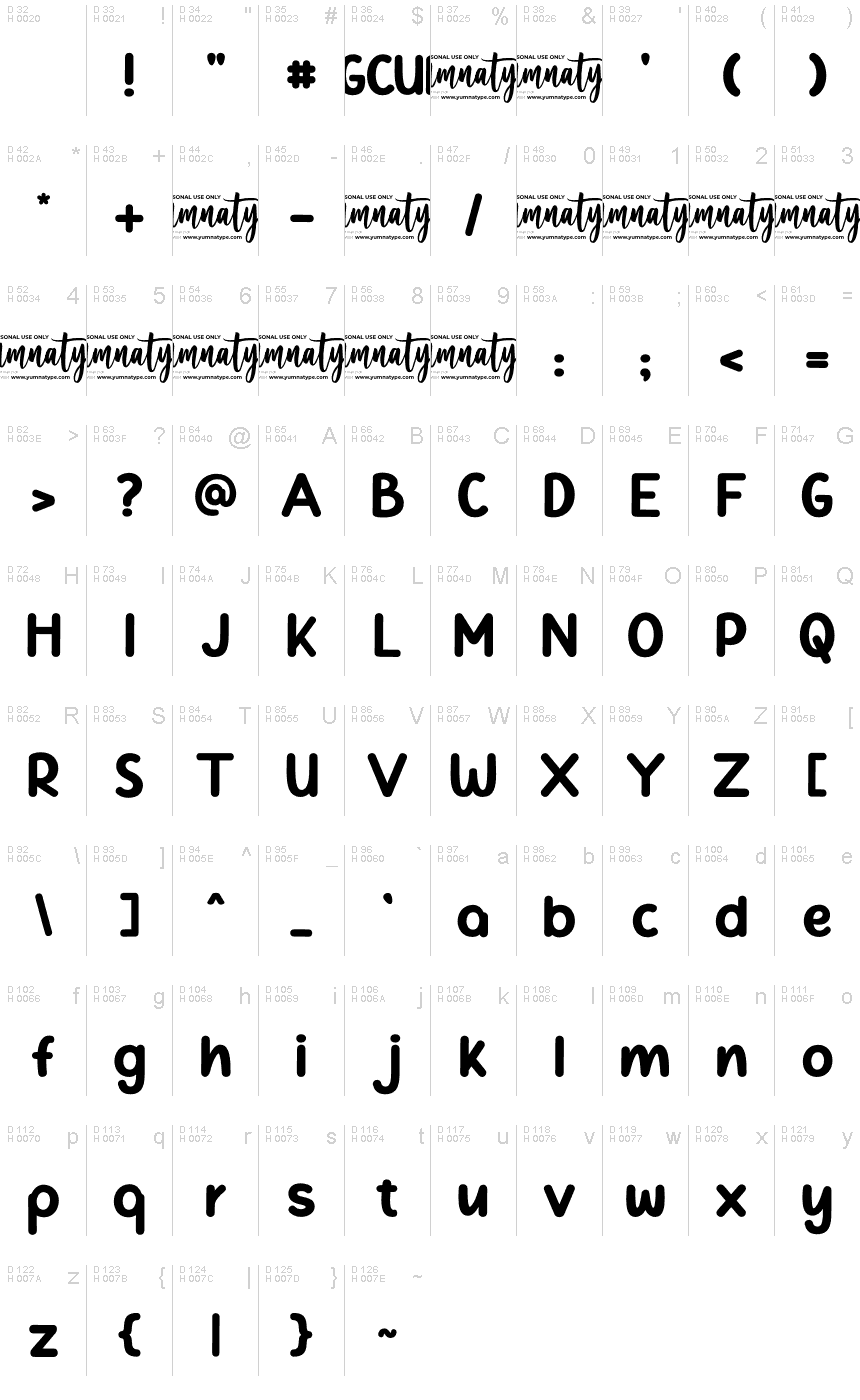
Bigcups Personal Use
Bigcups, a delightful creation by Yumna Family, brings cuteness to life with its semi-bold display font style.
Perfect for designing children's books, party invitations, and playful branding projects, this font adds a touch of whimsy to any design. Its charming curves and friendly letterforms make it an excellent choice for crafting eye-catching headlines or creating memorable logos.
Stand out from the crowd and captivate your audience with the adorable Bigcups font - where creativity meets charm!